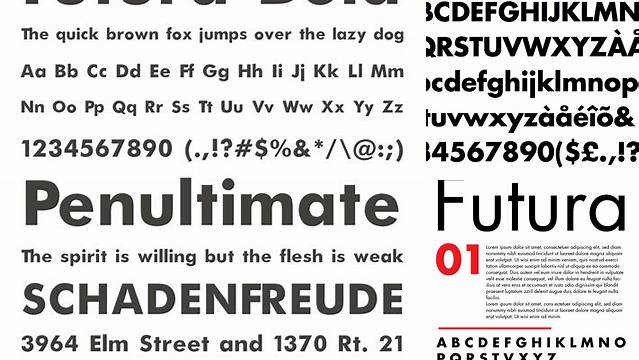
Futura Bold font free download is a cornerstone of graphic design, celebrated for its clean lines, geometric shapes, and enduring appeal. It's a typeface that has transcended generations, gracing everything from book covers to brand logos. If you're on the hunt for this iconic font, you've come to the right place. This article is your comprehensive guide to the Futura Bold font free download, where we'll explore its origins, characteristics, uses, and, of course, how to get your hands on it without spending a dime. So, let's dive in!
What is Futura Bold and Why Does it Matter?
Futura Bold is a geometric sans-serif typeface designed by Paul Renner in 1927. Its design is based on geometric shapes, primarily circles, triangles, and squares. This gives it a distinct, modern appearance that’s both elegant and highly legible. The font family is renowned for its clarity and simplicity, making it an excellent choice for a wide range of applications. But why does Futura Bold still matter, especially in a world overflowing with fonts? For starters, its versatility is unmatched. It works beautifully in headlines, body text, and even in small print. Its clean aesthetic makes it ideal for both print and digital media. Think about the logos of iconic brands like Volkswagen, Supreme, and Louis Vuitton – all of which utilize Futura (or variations thereof). The font's staying power is a testament to its timeless design. It hasn't aged a bit, maintaining its relevance and appeal across decades. It has a certain quality that conveys a sense of modernity, sophistication, and reliability. It’s not just a font; it's a statement.
Futura Bold also holds a special place in design history. Born from the Bauhaus school of design, it embodies principles of functionality and minimalism. This heritage gives it a unique cultural significance and a respected position within the design community. Because of its geometric foundation, Futura is incredibly harmonious and balanced. This creates a pleasant reading experience, whether you're reading a short headline or a long paragraph. Its clean lines and open counters contribute to excellent legibility, which is crucial for any design project. The font is also highly adaptable. It comes in a variety of weights and styles, including Bold, Italic, and Condensed versions, allowing designers to create visual hierarchies and add depth to their work. This flexibility makes it suitable for various design purposes, from branding and advertising to web design and editorial layouts. The font is, without a doubt, a design workhorse that is incredibly versatile. Finally, its widespread availability and ease of use make it a favorite among both professional designers and casual users. So, whether you are a seasoned designer or a beginner, the versatility and the charm of the font are difficult to ignore. So, if you want a font that is both classic and contemporary, the Futura Bold font free download is something you should consider.
Using Futura Bold Effectively in Your Designs
Once you've secured your Futura Bold font free download and installed the font, it’s time to start using it. To get the most out of Futura Bold, consider its qualities and how they can enhance your designs. Its bold weight is excellent for headlines, subheadings, and any text that you want to stand out. The strong, clean lines of the font can immediately grab attention and convey a sense of authority and modernity. When using Futura Bold for body text, consider pairing it with a lighter weight of the same font family or with a complementary sans-serif font to create visual contrast and improve readability. Contrast is key in design, so don’t be afraid to experiment with different font combinations to see what works best. Pay close attention to the kerning (the space between letters) and leading (the space between lines) to ensure your text is easy to read. Adjusting these elements can greatly improve the overall appearance of your design. Also, consider the context in which you are using Futura Bold. Is your design for a professional setting, or is it more casual? Futura's clean lines can be both formal and versatile, which makes it suitable for all types of projects. For logos, Futura Bold is a great choice. Its simple design is easy to recognize and remember, and it can communicate a brand’s values effectively. Many well-known brands have used Futura Bold for their logos, showing its timeless appeal. When creating websites, Futura Bold can be used for headings and calls to action to make them stand out. Its clarity and legibility make it an excellent choice for digital media, where content needs to be easily accessible on different devices. For print design, Futura Bold can also be effectively used in brochures, posters, and other marketing materials. Its clean aesthetic makes it perfect for creating a modern and stylish design. Remember, the effectiveness of a font often depends on its usage. Test out your design in a variety of settings and get feedback from others to make sure that you are using the font in the most optimal way. Practice with Futura Bold and experiment with different layouts and font combinations. By doing so, you will soon be able to use this classic font with confidence and create designs that capture attention and communicate effectively.
Conclusion: Embrace the Timeless Appeal